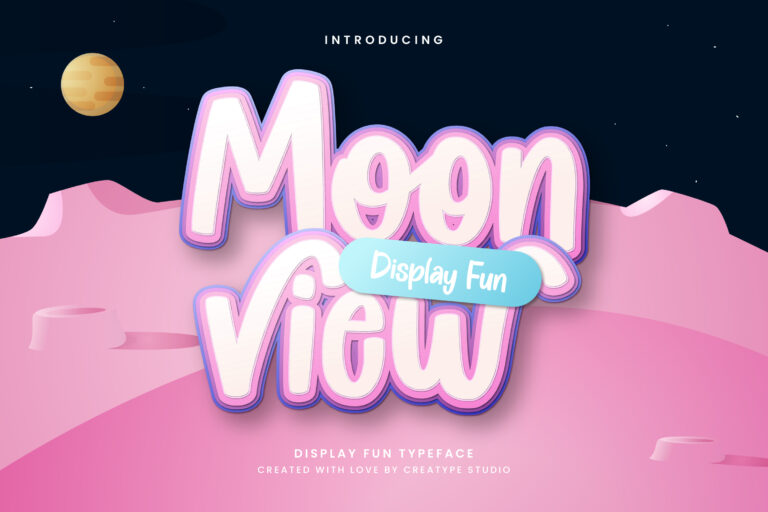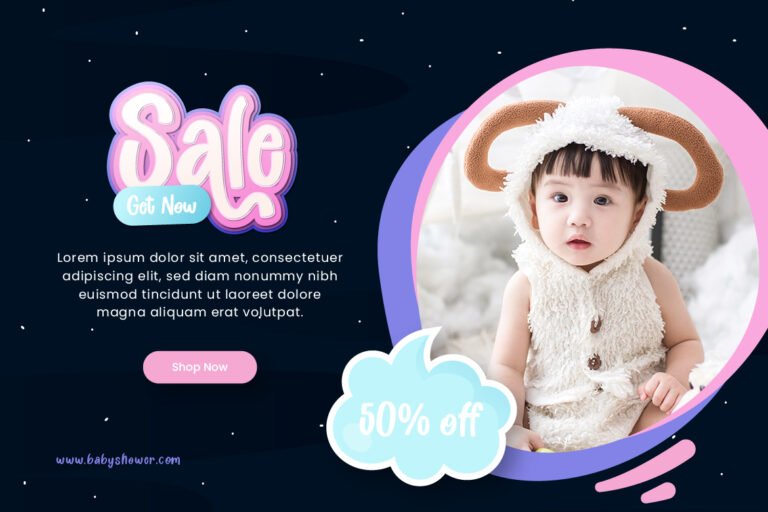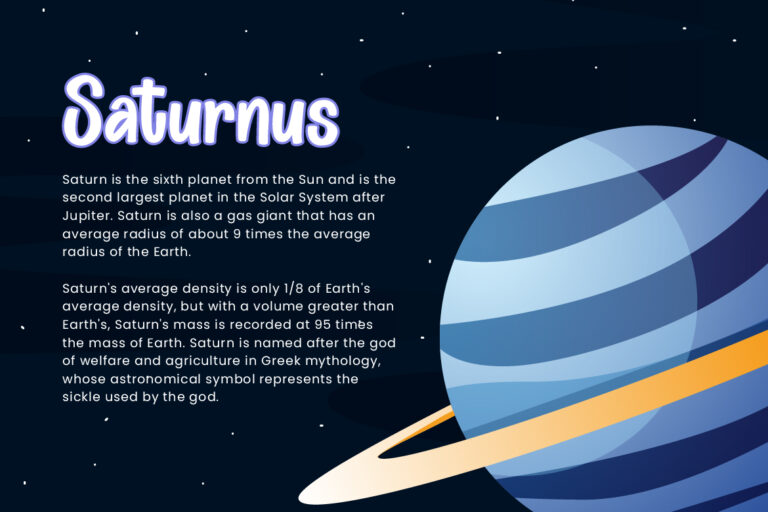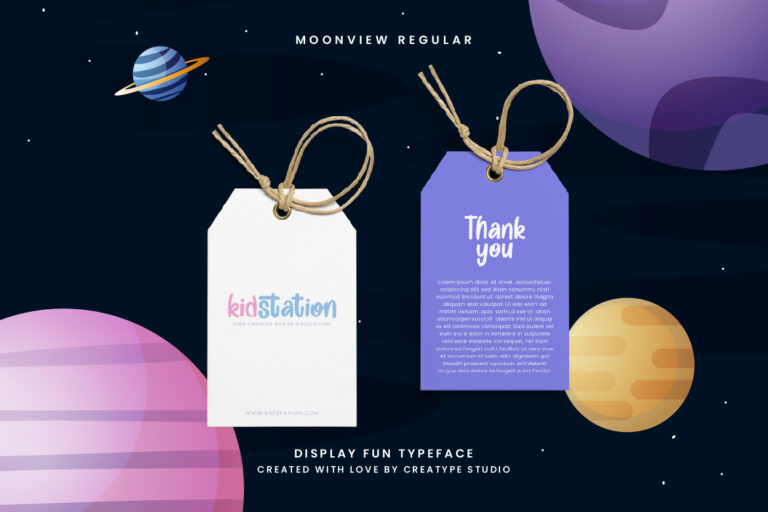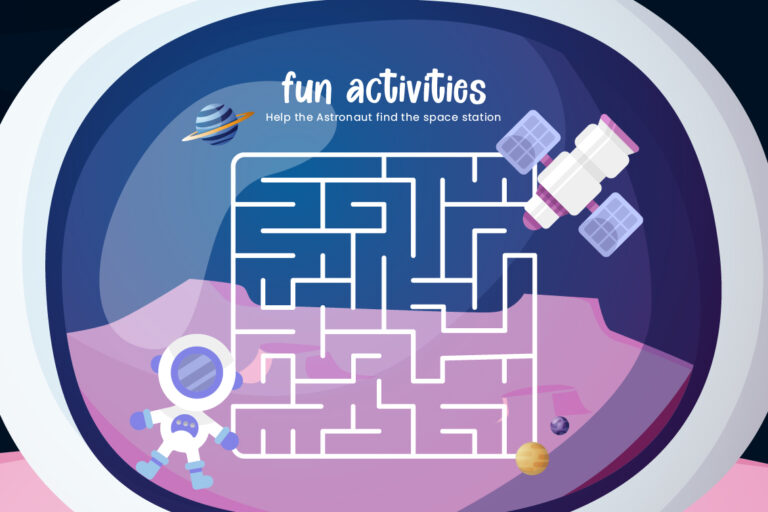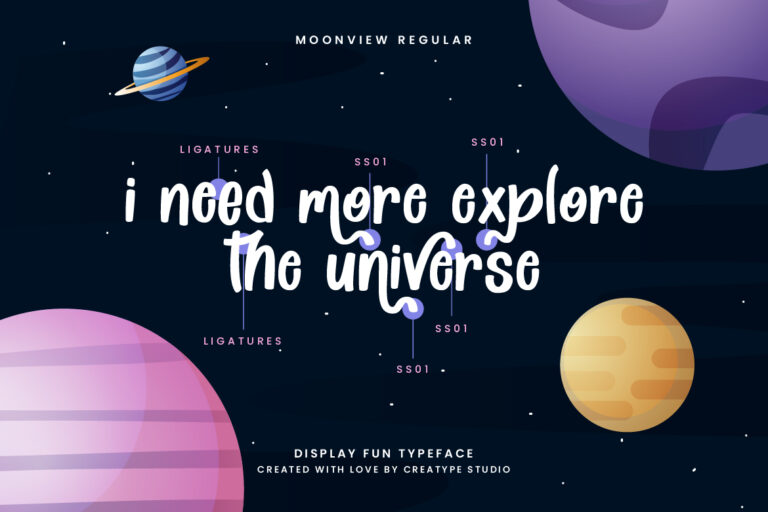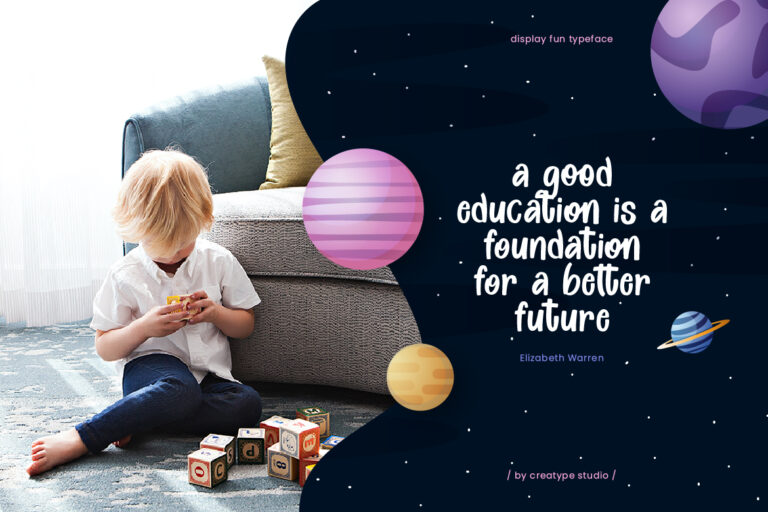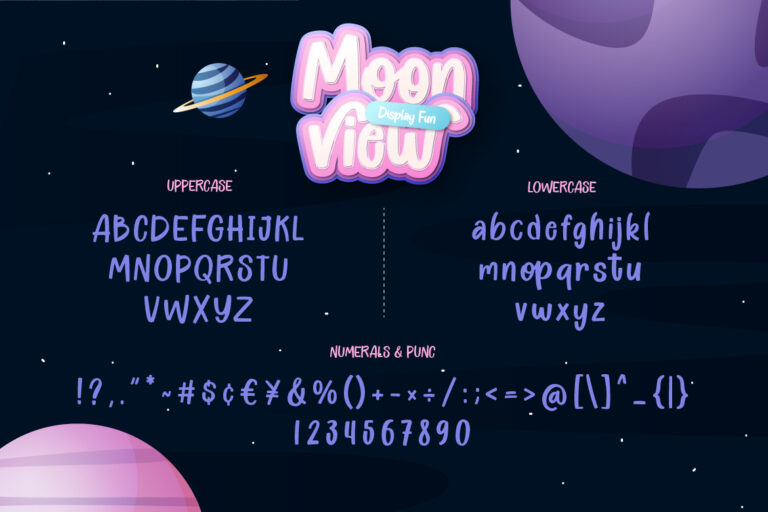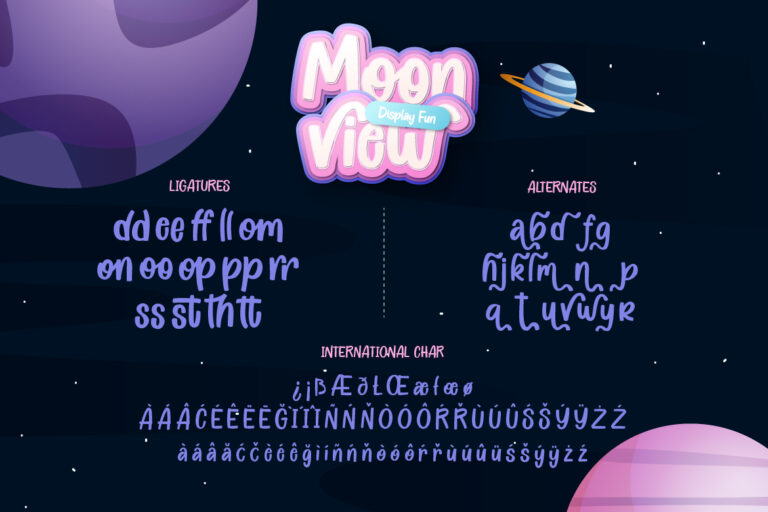
Moonview Display Children Fun
Moonview is a fun display typeface. Moonview has a fun appearance and is perfect as a display font and this font can also make your product even more attractive, of course.
Moonview is perfect for branding projects, logo, wedding designs, social media posts, advertisements, product packaging, product designs, label, photography, watermark, invitation, stationery and any projects that need handwriting taste.